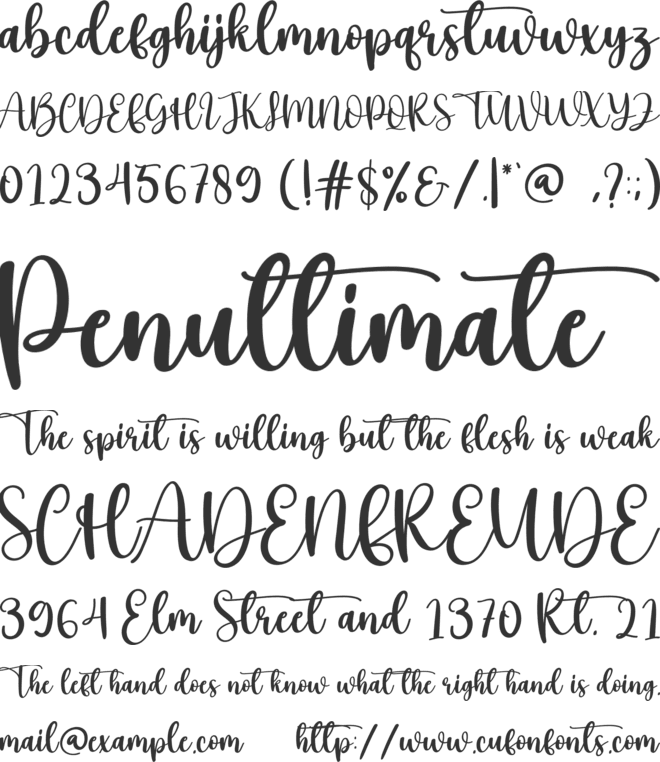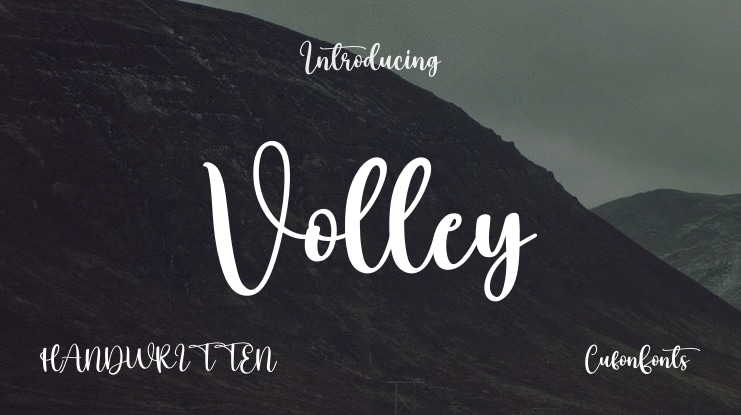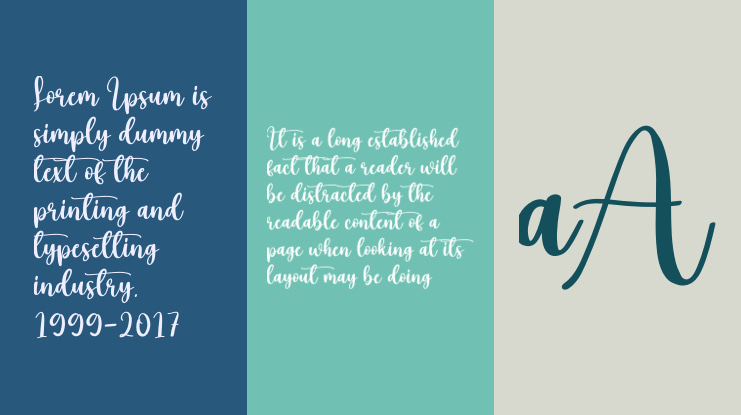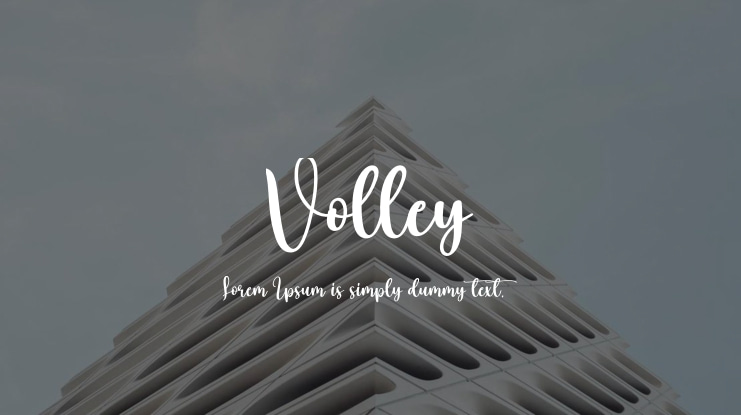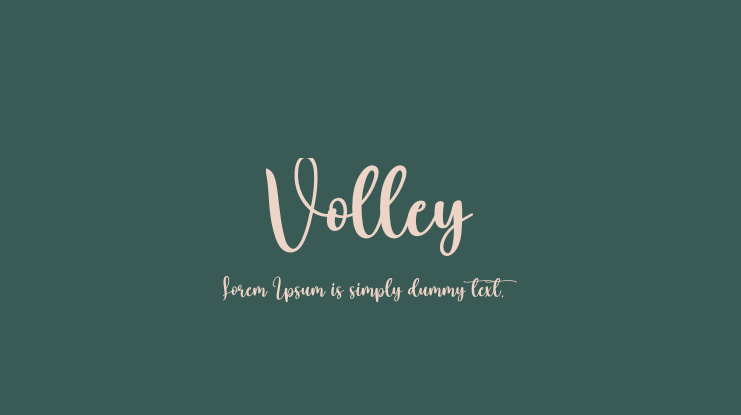
Our latest letter styles are designed to elevate your wall displays, wedding invitations, social media post logos, advertisements, product packaging, labels, photography, watermarks, invitations, stationery, and any project that demands elegant handwriting.